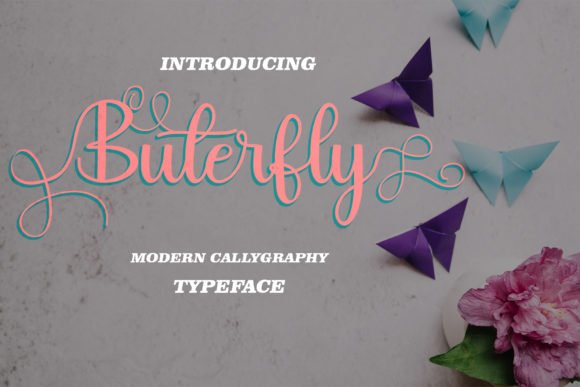
The Art of Elegant Design: Discovering the Beauty of Butterfly Font
As I sat at my desk, surrounded by scattered papers and empty coffee cups, I knew it was time to give my latest project a personal touch. I reached for my favorite pen and began to write, letting the ink flow onto the page in smooth, flowing strokes. It was moments like these that I fell in love with the art of handwritten design. And it’s this same passion that makes the Buterfly Font a true treasure for designers.
The Buterfly Font is a modern calligraphy font that exudes elegance and sophistication. Handwritten with love and care, this unique font brings a touch of natural charm to any design. Whether you’re creating a wedding invitation, a logo, or a social media post, the Buterfly Font is the perfect addition to add a personal and whimsical feel.
Butterfly Font Key Features
- Unique Characteristics: Features delicate, hand-drawn brushstrokes and intricate details, giving it a whimsical and artistic feel.
- Font Style: Available in both regular and italic styles, providing flexibility for different design applications.
Designer Review: Butterfly Font
Overall, I think the Butterfly Font is a beautiful and elegant addition to any design project. ✨ The flowing curves and subtle flourishes give it a sense of whimsy and playfulness that’s perfect for creative and artistic applications. ✨ The font’s openness and airiness also make it a great choice for headers and titles, where you want to add a touch of sophistication and elegance.
However, there are some limitations to consider. ⚠️ The font’s lines can sometimes feel a bit too delicate, which can make it difficult to read at smaller font sizes. ⚠️ Additionally, the font’s unique shape can make it prone to kerning issues, especially when paired with other fonts.
Here are some key things to keep in mind when using the Butterfly Font:
- Best used for headers and titles where elegance and sophistication are key
- May not be suitable for body text due to line height and readability issues
- Potential kerning issues when paired with other fonts
- Delicate lines may require careful adjustment for smaller font sizes
Overall, I think the Butterfly Font is a great choice for designers who want to add a touch of whimsy and elegance to their projects. With careful consideration and adjustment, it can be a beautiful and effective addition to any design.
The Butterfly Font is ideal for:
- Wedding invitations and decorations
- Summer-themed designs (e.g., beach parties, pool parties)
Tips for Getting the Most Out of the Butterfly Font
To get the most out of the Butterfly Font, try the following:
- Pair the font with bright, pastel colors for a whimsical look
- Use the font in conjunction with floral patterns and illustrations
Alternatives to “Butterfly Font” for Designers
Caslon
Caslon is a serif font designed by William Caslon in the early 18th century. It is known for its elegant and refined appearance, making it suitable for formal documents, books, and luxury brands. When to use: formal invitations, certificates, and high-end marketing materials.
Comparison to Butterfly Font: While Butterfly Font has a whimsical feel, Caslon is more traditional and formal. Caslon’s classic design makes it a better choice for projects that require a sense of history and sophistication.
While the Butterfly Font is designed to be versatile, it is not a modular font. However, you can use font manipulation software to create custom variations or adjust the font’s parameters to suit your design requirements.
Q: What is the recommended font size and resolution for optimal display of Butterfly Font?
For optimal display, we recommend using the Butterfly Font at a minimum size of 12 points and a resolution of 300 DPI or higher. This will ensure that the font’s intricate details and flourishes are preserved and displayed accurately.